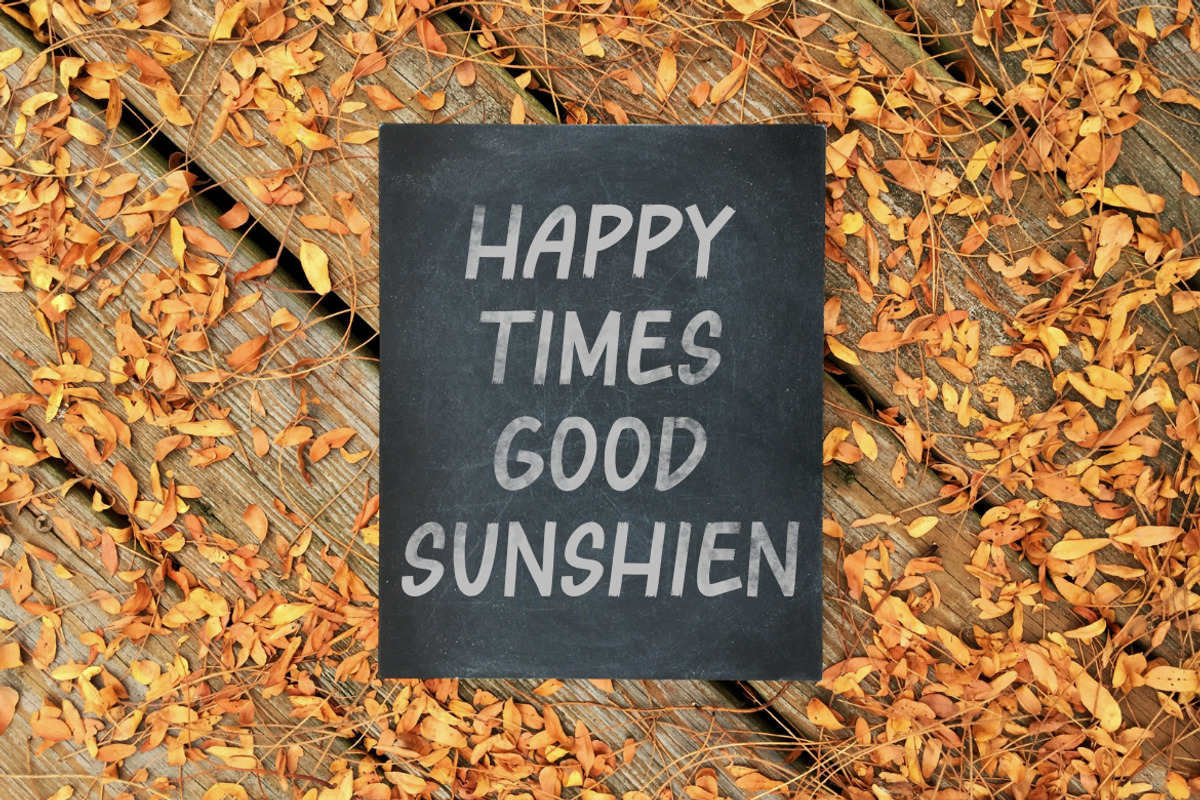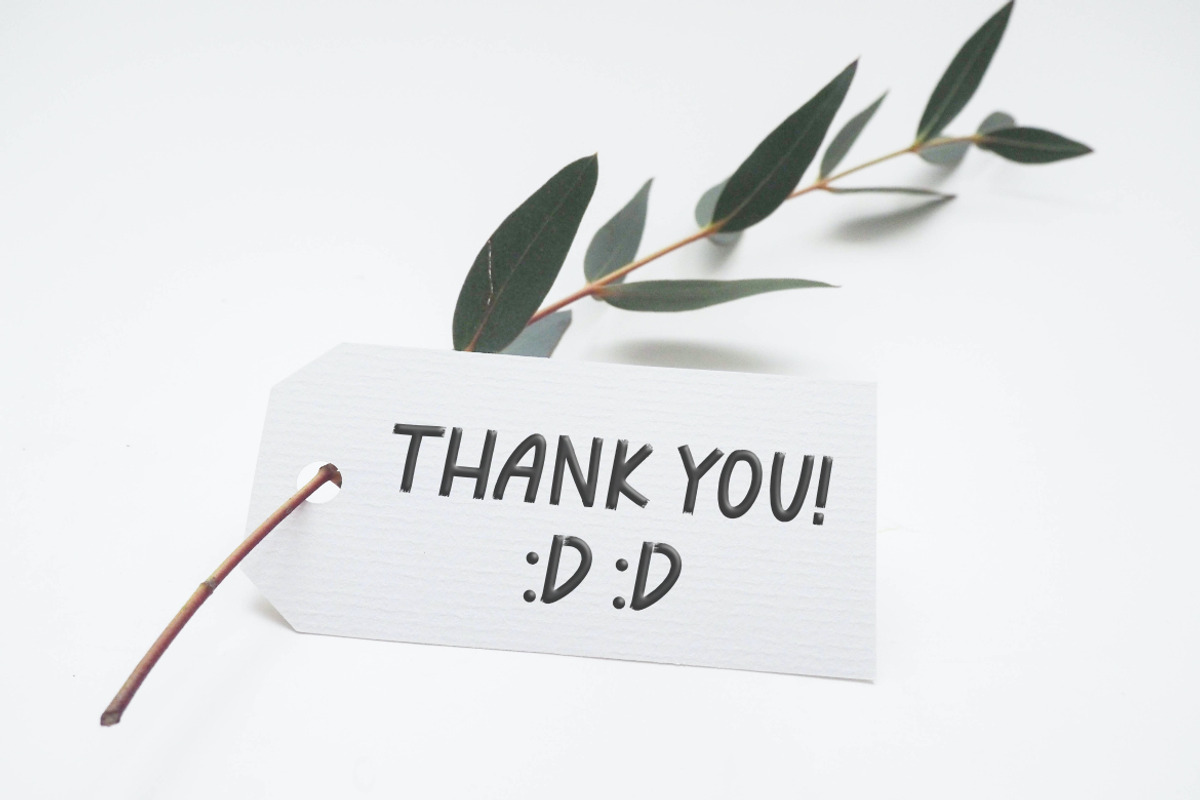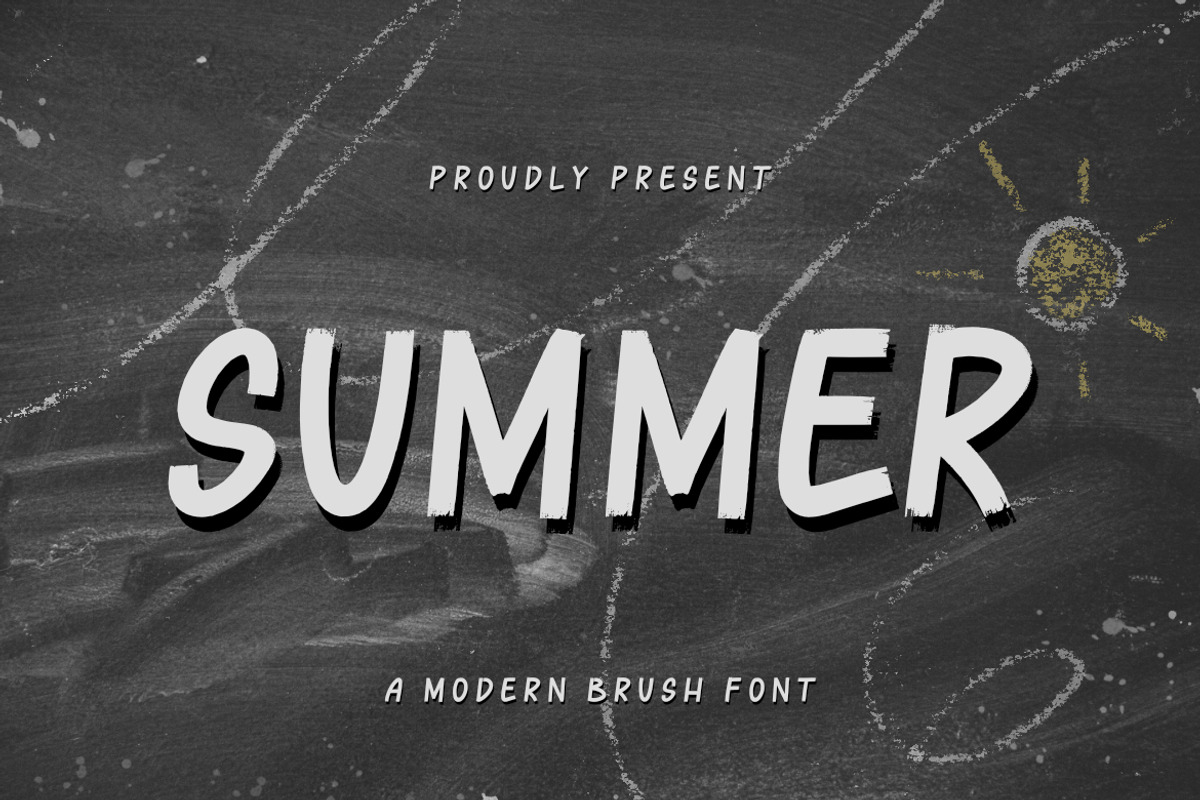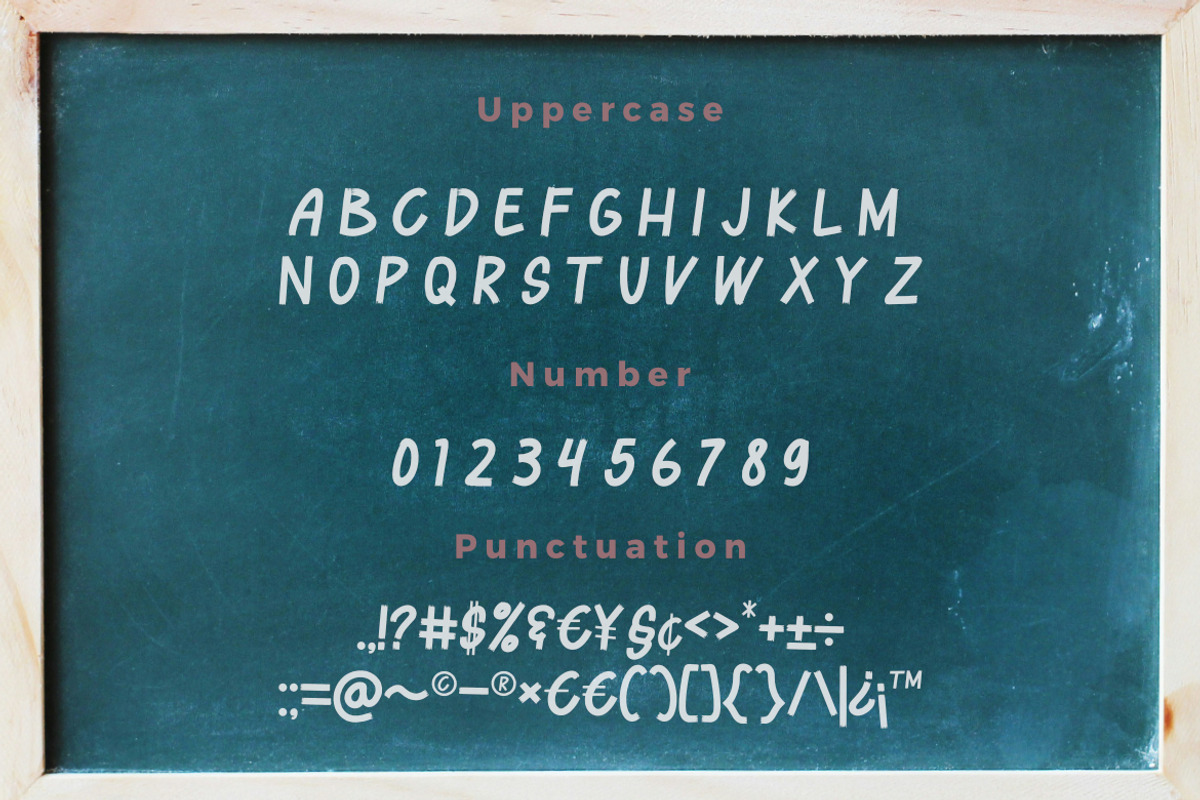
Summer Brush Font
Summer Brush Font, inspired by Brush typography. This font is made with a high premium quality level which you can use as flyers, quotes, posters, banners, packaging, merchandise, logotypes and much more.